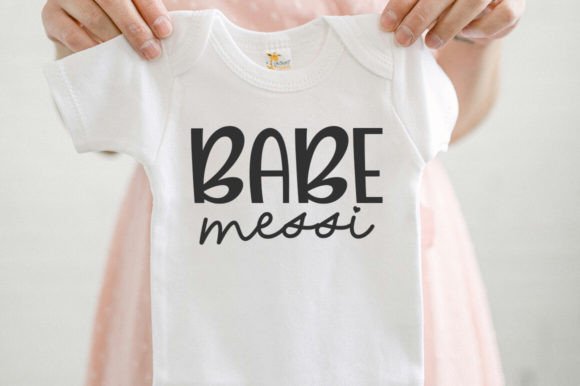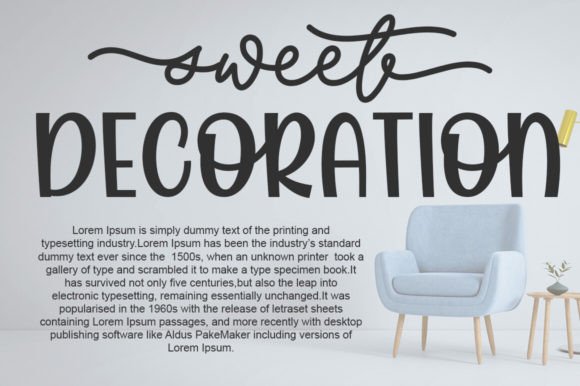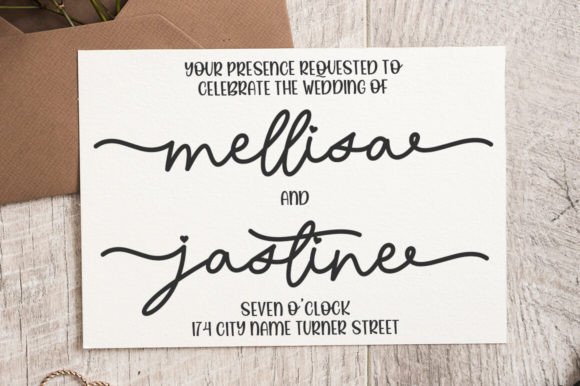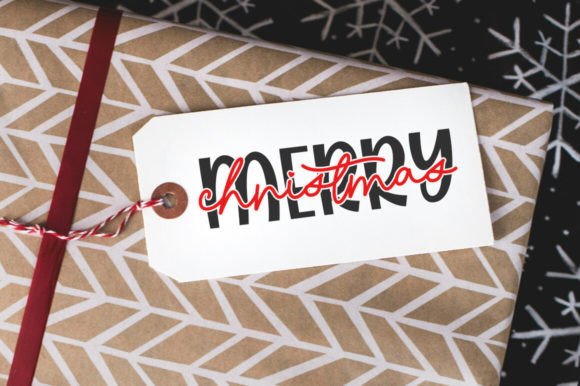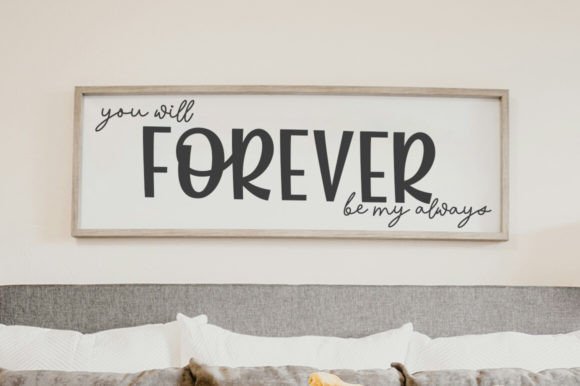
Discover the Secret to Elevating Your Designs with Beauty Sweet Font
Have you ever stared at a blank canvas, waiting for inspiration to strike? For many designers, that moment of creative spark often comes when they stumble upon the perfect font. And that’s exactly what we’re excited to introduce – Beauty Sweet Font, a stunning duo font that’s about to take your designs to the next level.
Expertly crafted to add a touch of elegance and charm, Beauty Sweet Font is a game-changer for designers looking to elevate their projects. Whether you’re working on social media content, branding, packaging, or logo designs, this versatile font duo is sure to leave a lasting impression. With its sophisticated charm, Beauty Sweet Font is a valuable addition to any designer’s toolkit, helping to transform and add a premium touch to every design it graces.
Beauty Sweet Font Key Features
- Unique Characteristic: Unique hand-drawn design with elegant and feminine touch, making it ideal for beauty, fashion, and lifestyle-related projects
- Font Weight: Offers multiple font weights, including Light, Regular, Medium, Bold, and Extra Bold
Beauty Sweet Font Review
First off, let me say that the Beauty Sweet Font is a lovely addition to any design project. ✨ It has a playful and feminine feel to it that’s perfect for beauty or lifestyle brands. The script style is very on-trend and adds a touch of elegance to any text. ✨ The font is also highly customizable, allowing you to adjust the color, size, and spacing to suit your design needs.
However, there are a few limitations to consider: ⚠️ The font can feel a bit overused, especially in the beauty niche. This can make it harder to stand out from the competition. Additionally, the font may not be the best choice for text-heavy designs, as the script style can make it difficult to read at smaller font sizes. ⚠️ Finally, the font may not be compatible with all operating systems or devices, which can lead to display issues.
- Playful and feminine script style
- Perfect for beauty or lifestyle brands
- May feel overused in certain niches
- Not ideal for text-heavy designs
Tips for Getting the Most Out of Beauty Sweet Font
1. Use Beauty Sweet Font for titles and headings to add a touch of elegance and sophistication.
2. Pair Beauty Sweet Font with a clean and simple sans-serif font for body text to create a beautiful contrast.
3. Experiment with different font sizes and colors to create a unique and eye-catching design.
2. Fashion and beauty branding.
3. Luxury product packaging and labeling.
Alternatives to Beauty Sweet Font for Designers
Great Vibes Font is a modern, elegant script font that is perfect for creating eye-catching headlines and titles. It features a flowing, handwritten style that is ideal for use in branding, advertising, and packaging design. Great Vibes Font is similar to Beauty Sweet Font in its elegant and sophisticated feel, but has a more relaxed and casual tone.
Lato Font is a clean and modern sans-serif font that is great for use in body text and headings. It features a geometric design with a friendly and approachable feel, making it perfect for use in editorial and publishing design. Lato Font is different from Beauty Sweet Font in its simplicity and lack of ornate details, but shares its modern and sophisticated feel.
Playfair Display Font is a luxurious and elegant serif font that is perfect for use in high-end branding and advertising. It features a classic and sophisticated design with intricate details and flourishes, making it ideal for use in formal and high-end design projects. Playfair Display Font is similar to Beauty Sweet Font in its elegant and sophisticated feel, but has a more traditional and classic tone.
What is the recommended font size for optimal readability with Beauty Sweet Font?
For optimal readability, we recommend using Beauty Sweet Font at font sizes between 12 and 24 points. However, the ideal font size may vary depending on the specific application, document, and intended audience. Experiment with different font sizes to find the most readable and effective use of the font.